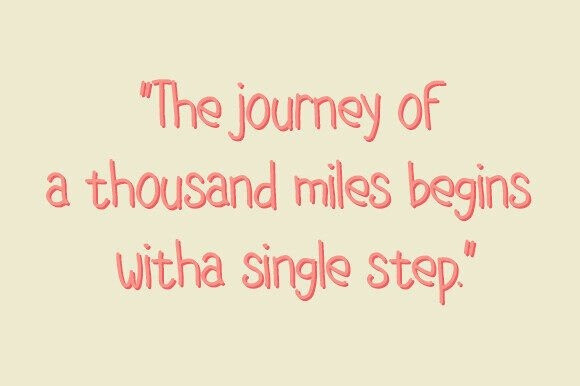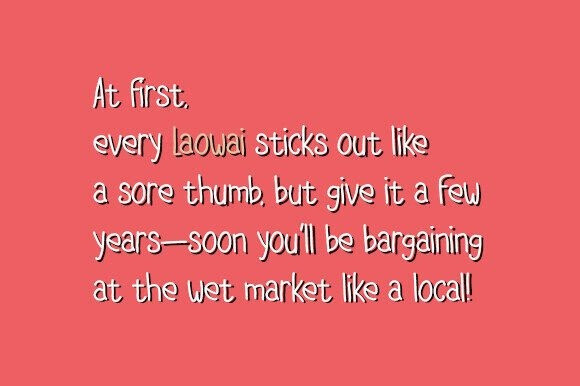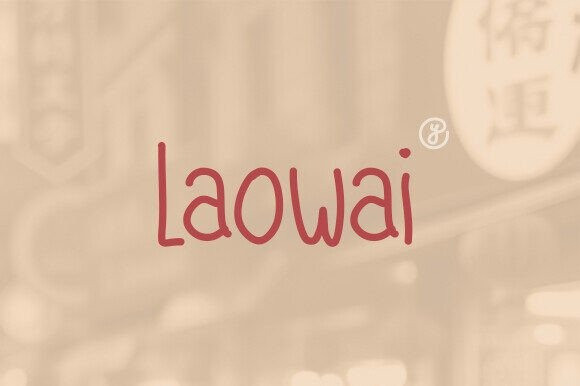
Laowai Font
Laowai Font, a bold and culturally rich typeface inspired by the dynamic blend of foreign curiosity and deep-rooted adaptation. Designed for global storytellers, cross-cultural creators, and visionaries who thrive at the intersection of East and West, Laowai is more than a font—it’s a celebration of cultural fluency. With its harmonious fusion of modern minimalism and traditional Chinese calligraphic hints, this typeface embodies the spirit of those who navigate dual worlds with ease, making it ideal for projects that bridge boundaries and spark connection.